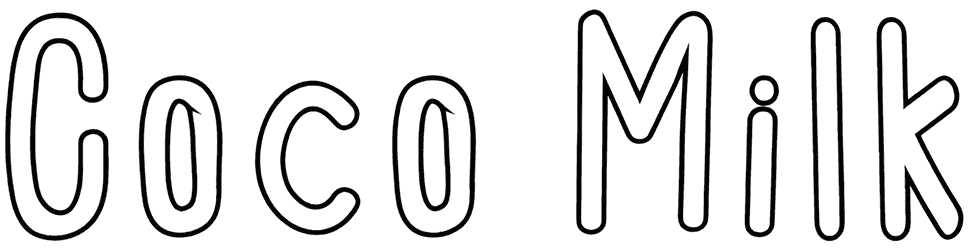
Coco Milk Font
If you think your design will be more complete and eye-catching with an appearance that is far from a typical form, take a look at Coco Milk. As an outline font, it has a minimal and unique vibe with fluffy letterforms. Design your projects, such as posters, labels, mugs, and others, the same as this sweet menu font and make them corking.